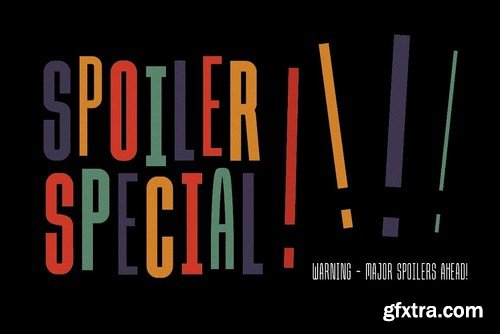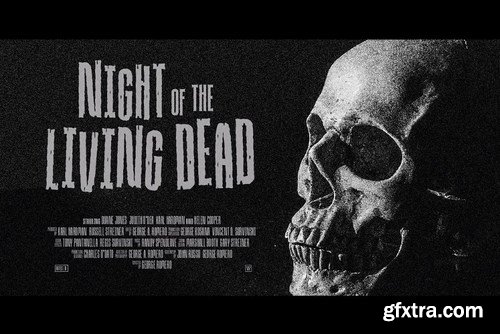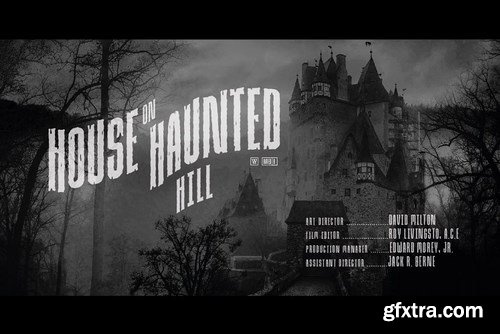
Due Credit - A versatile display font for film marketing, posters, credit blocks and trailers.
Due Credit is a new display font specifically designed for the film and television industry. A versatile typeface that’s suitable for bold headline titles and small credit blocks with an additional horror inspired extra style.